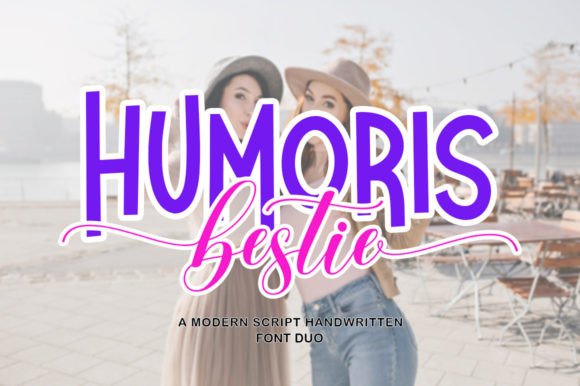
The Ultimate Guide to Bestie Humoris Font: Elevate Your Designs with Romance and Style
I’ll never forget the time I was working on a Valentine’s Day project for a client, and I just couldn’t find the perfect font to convey the romantic vibe they were looking for. The design was almost complete, but something was missing – a touch of elegance, a dash of whimsy, and a whole lot of heart. That’s when I stumbled upon Bestie Humoris, a beautiful font duo that instantly captured the essence of love and friendship. In this article, I’ll share my experience with Bestie Humoris, and show you how to make the most of this stunning font in your designs.
An Honest Review of Bestie Humoris
What I Love About Bestie Humoris
- ✨ Romantic and elegant vibe: Bestie Humoris is perfect for creating designs that exude love, friendship, and warmth.
- ✅ Versatile and adaptable: This font duo works beautifully for a wide range of applications, from greeting cards to headlines, and even social media graphics.
- 💫 PUA encoded for easy access: With Bestie Humoris, you can easily access all the glyphs and ligatures, making it a breeze to create stunning designs.
- 🎨 Subtle and stylish: The sans serif and script combination creates a unique and captivating visual effect that’s sure to impress.
While Bestie Humoris is an amazing font, there are a few things to keep in mind:
- 🤔 Limited use for body text: Due to its elegant and cursive nature, Bestie Humoris might not be the best choice for lengthy body text. Stick to headlines, titles, and short paragraphs for the best results.
The Story Behind Bestie Humoris
Bestie Humoris was created with love and care by a talented font designer who wanted to capture the essence of friendship and romance. The designer’s inspiration came from the beauty of handwritten letters and the elegance of modern typography. The result is a font duo that’s both stylish and sentimental, perfect for designers, crafters, and creative hobbyists.